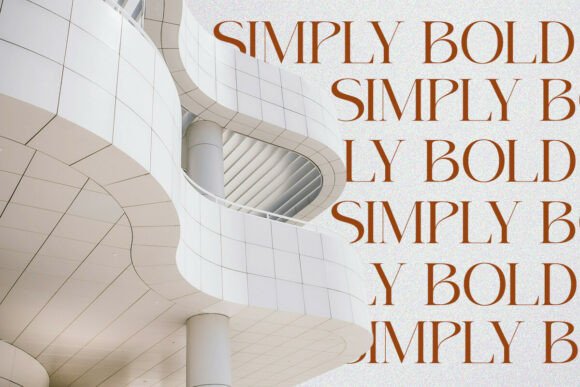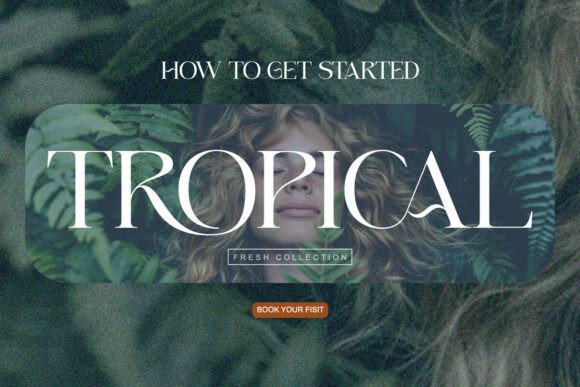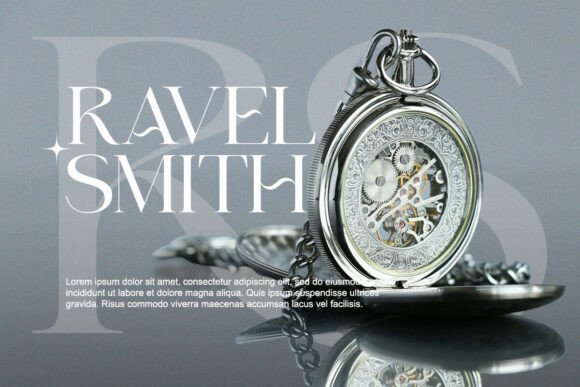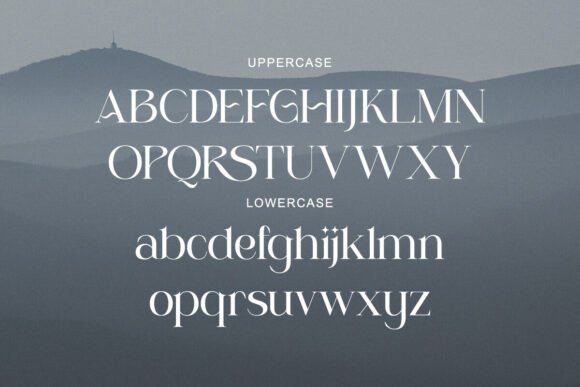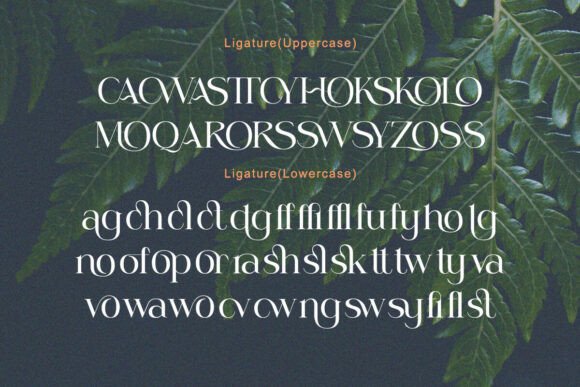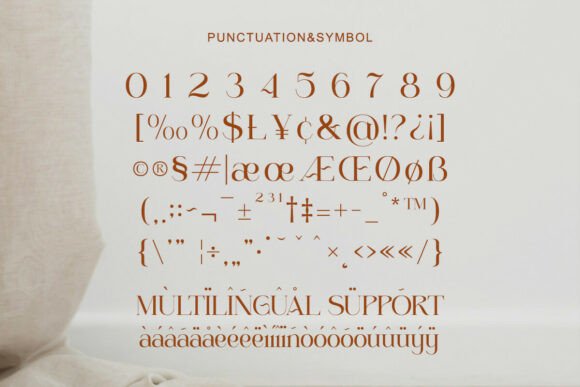
Introduction to Lessway Font
Lessway — A Modern Expression of Timeless Elegance Lessway is a modern serif typeface crafted to reflect quiet confidence and effortless beauty.
Its sleek letterforms and subtle high-contrast strokes merge sophistication with minimalism, resulting in a font that feels both editorial and luxurious Designed with precision and sensitivity, Lessway embodies the elegance of contemporary fashion design and the grace of classic typography.